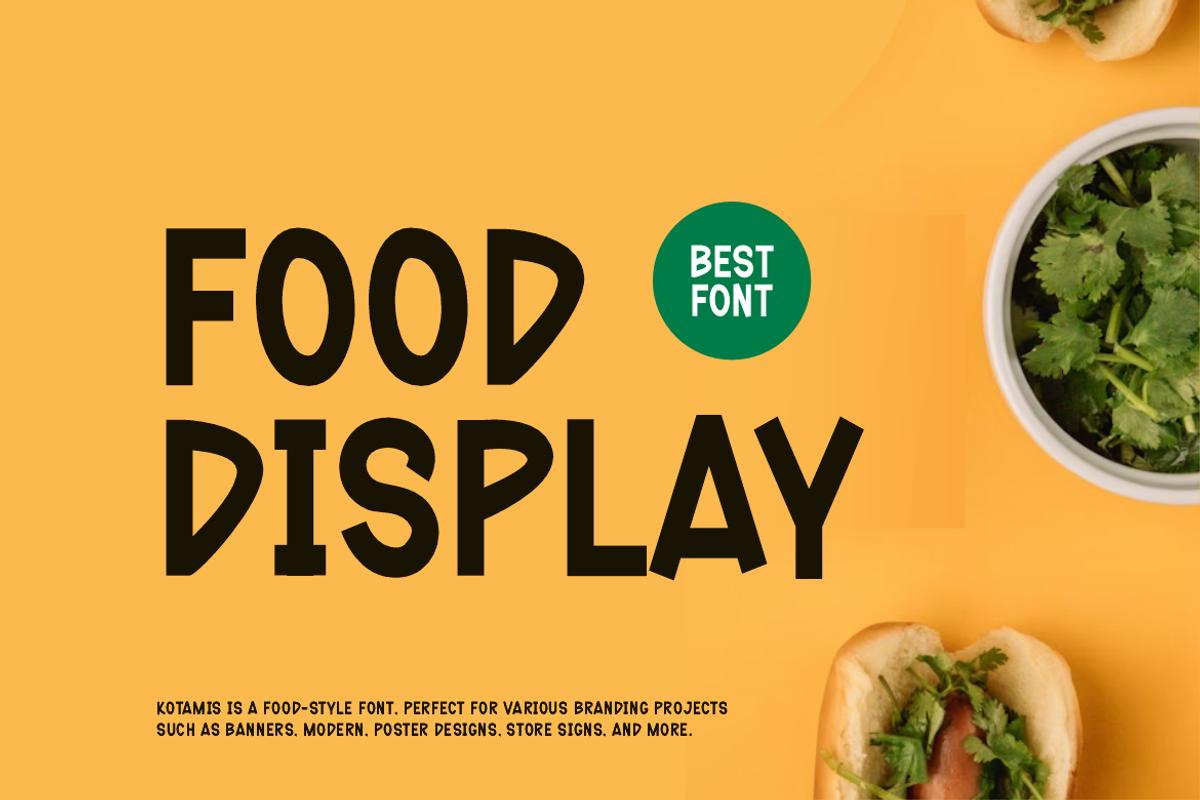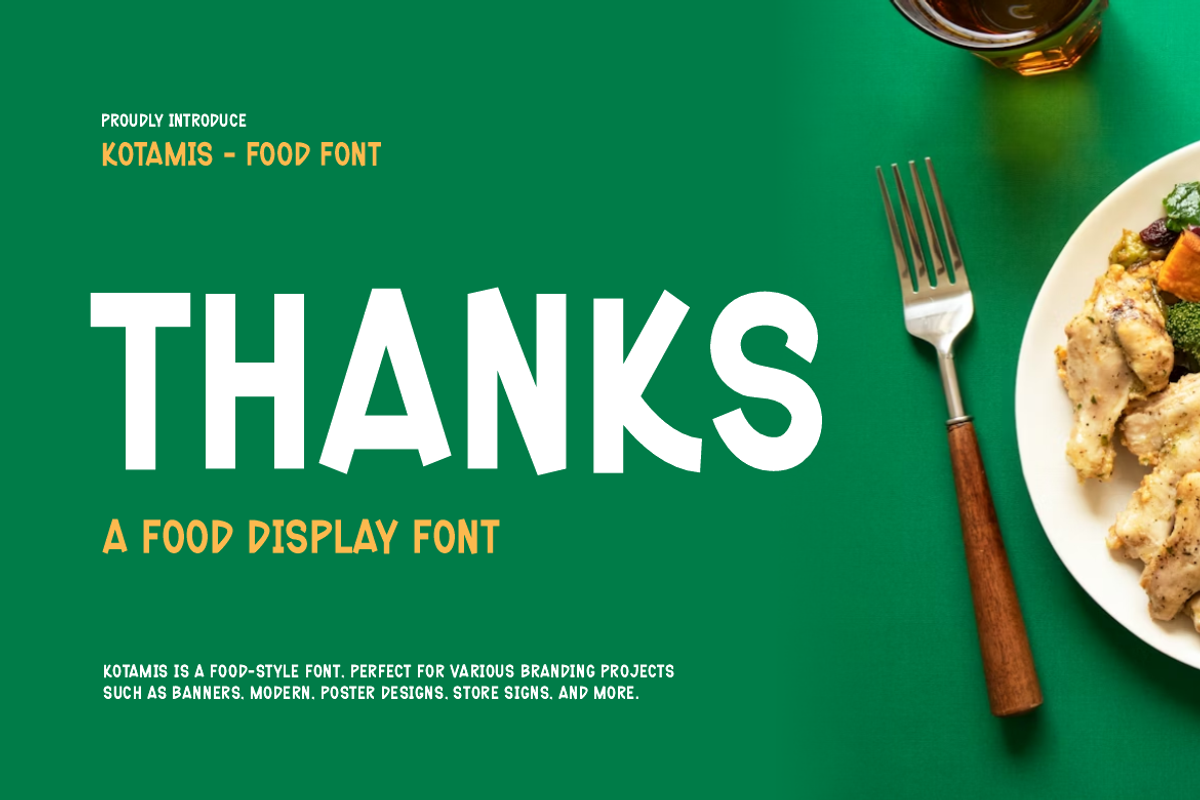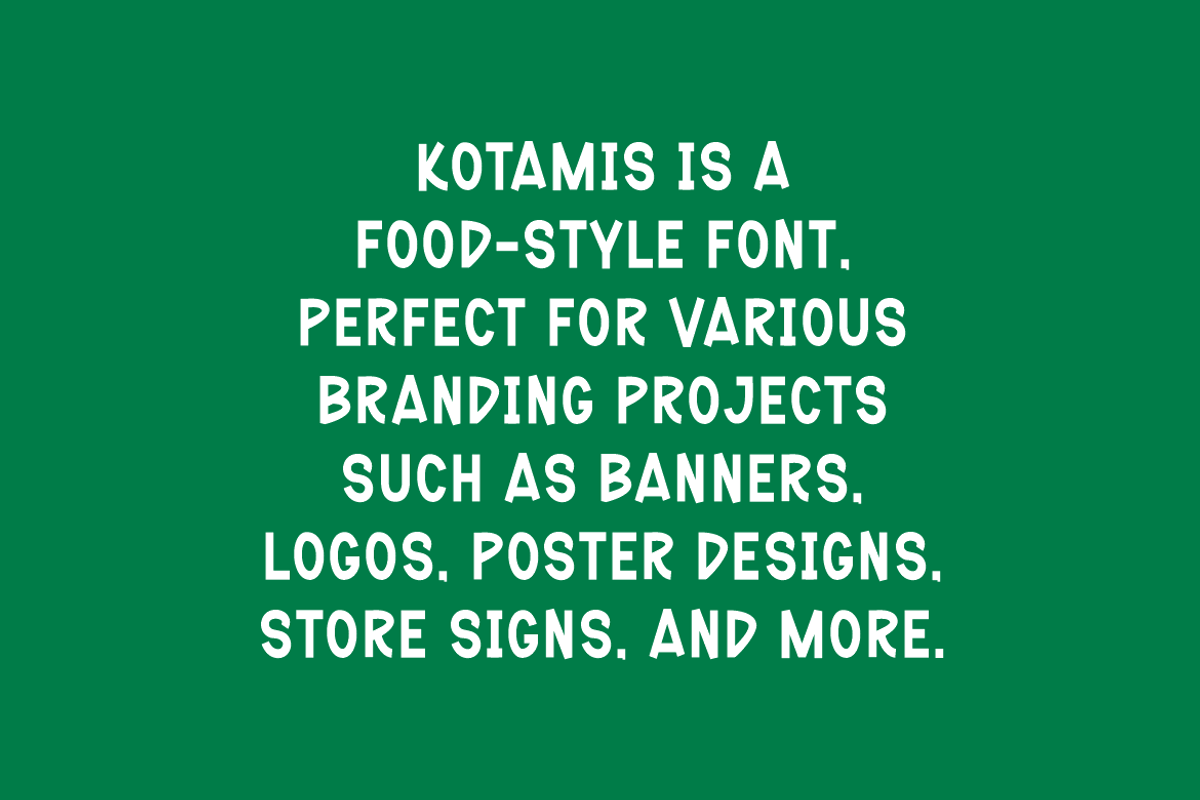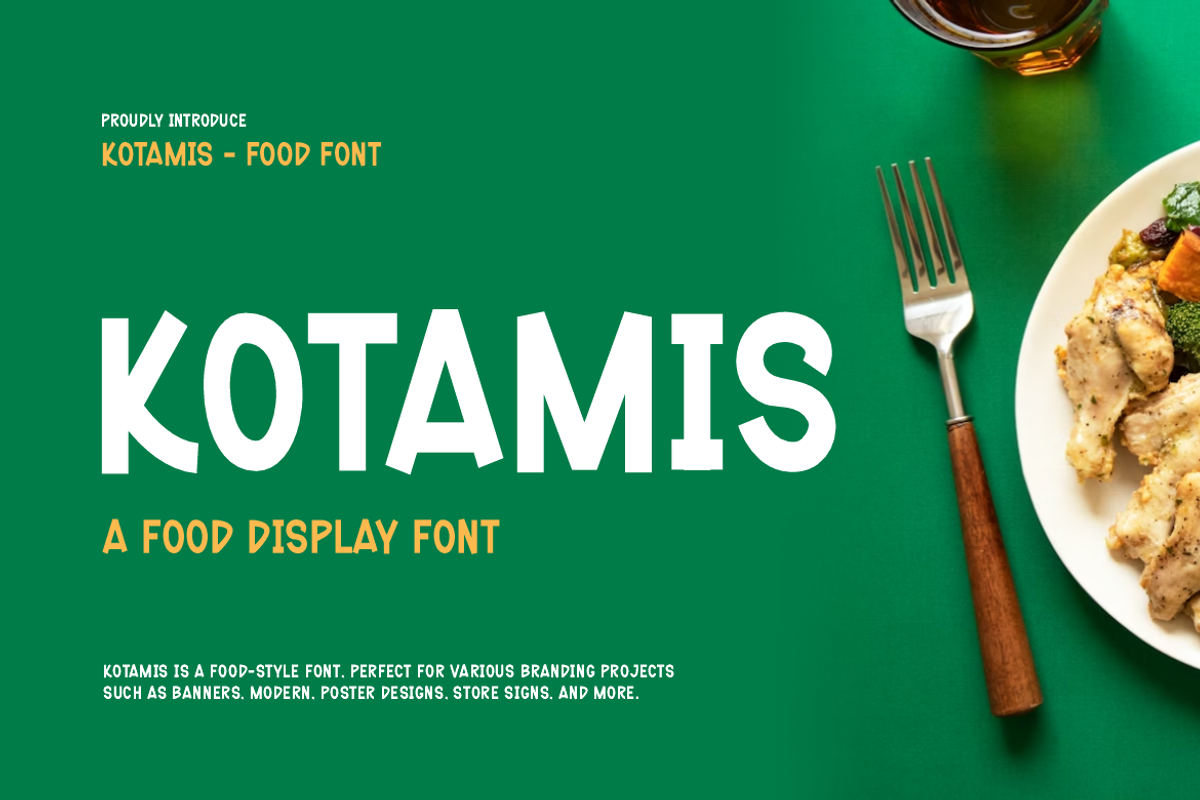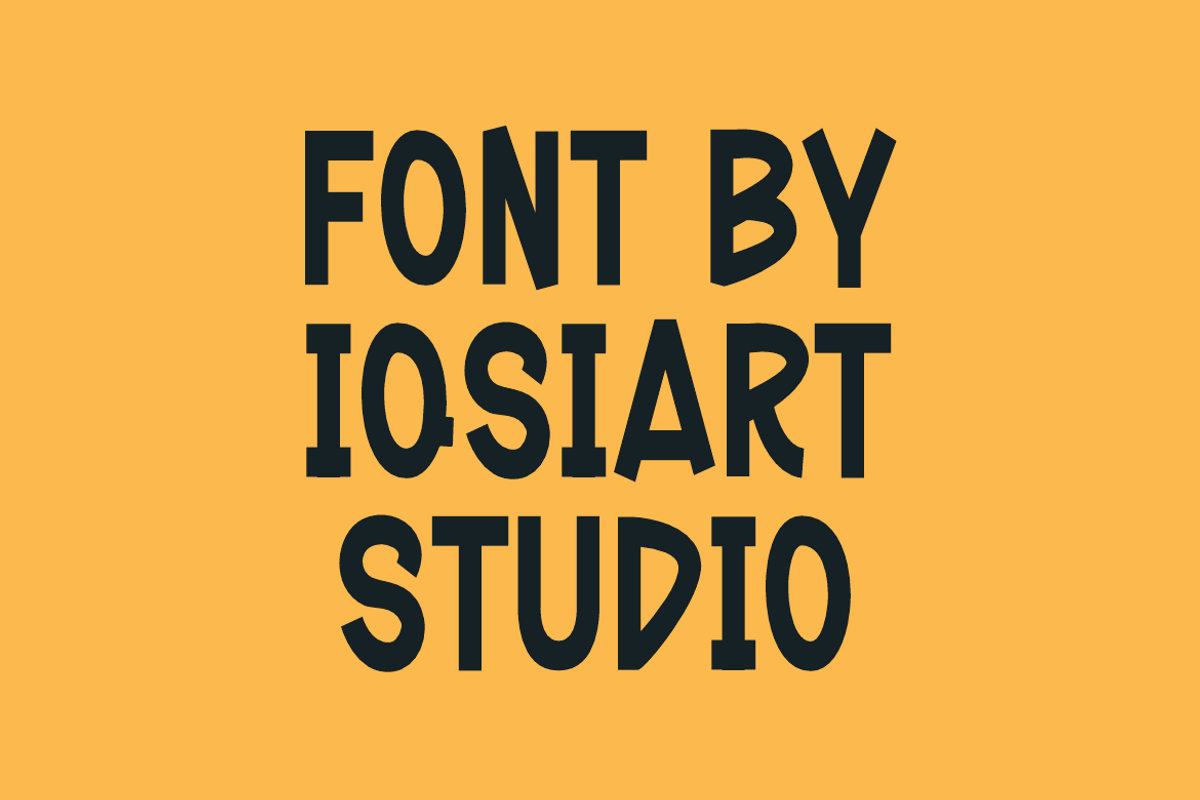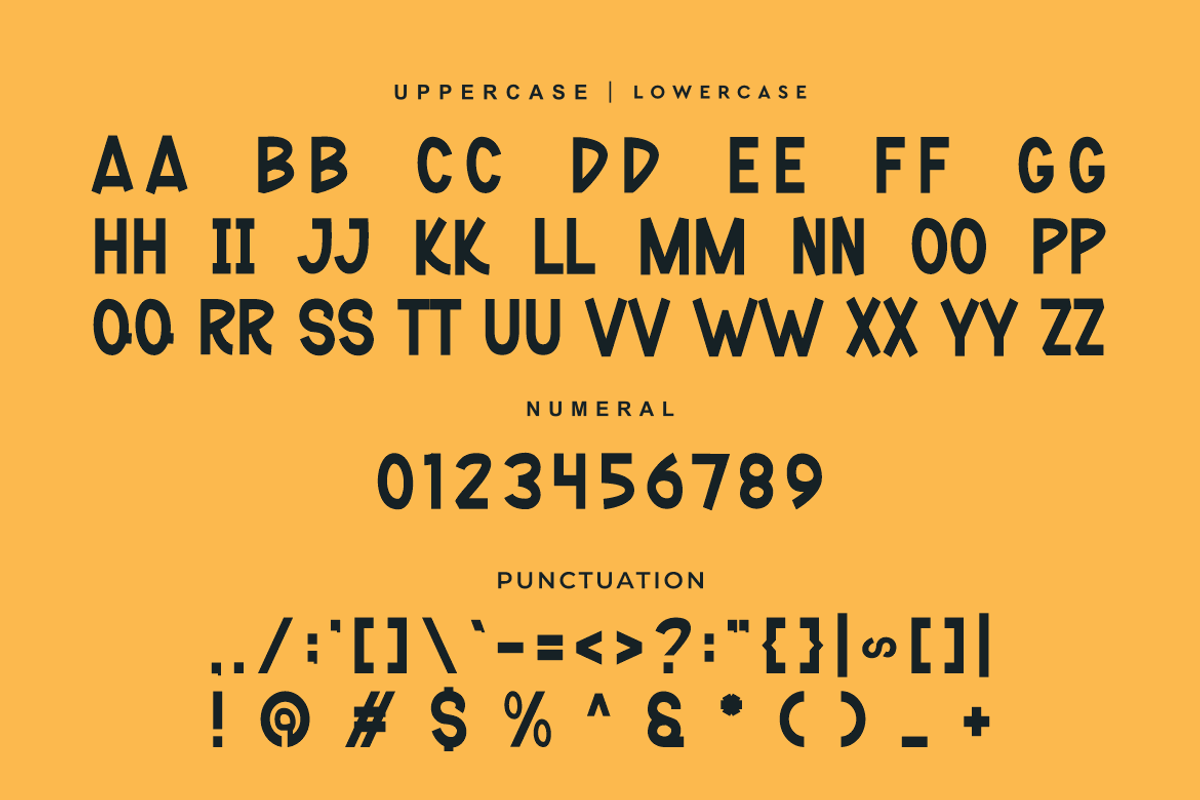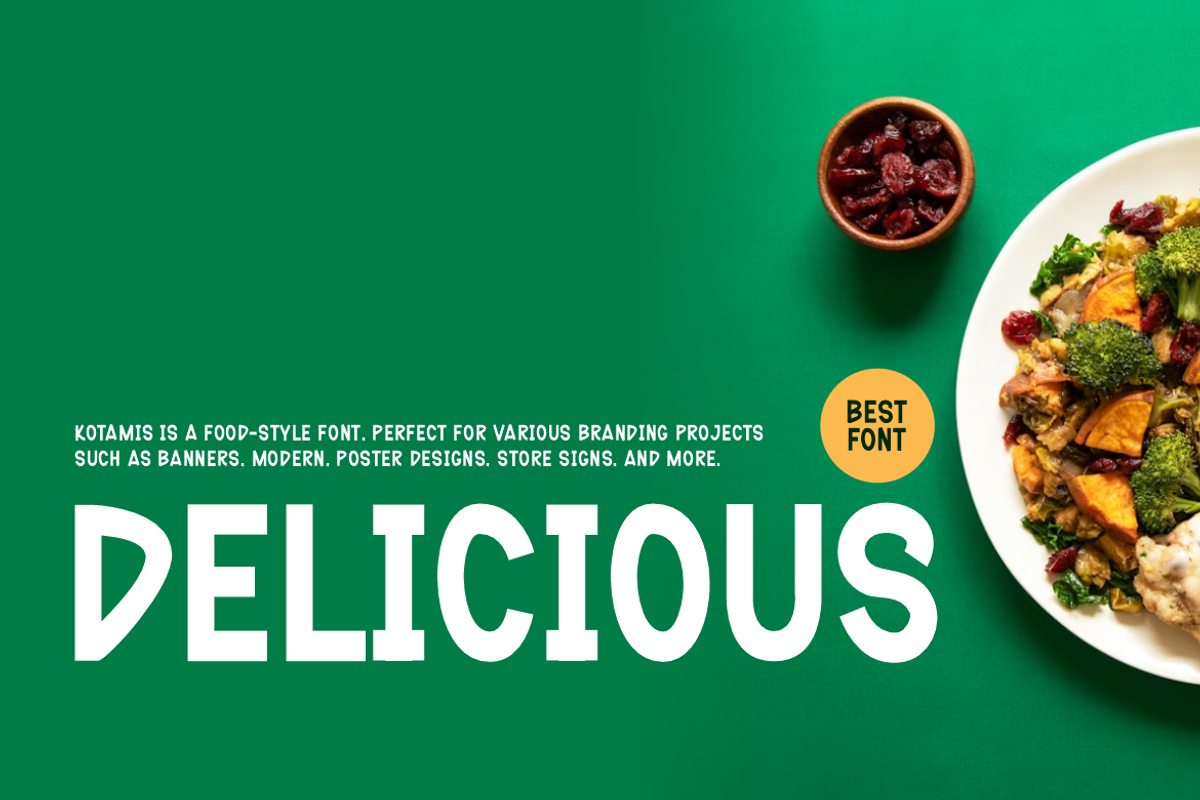
Kotamis - Food Display Font
Kotamis Font is a best and authentic display typeface that suits a variety of design needs. We offer a wide range of themes and font styles — visit our profile to explore more and find the perfect style for your project.